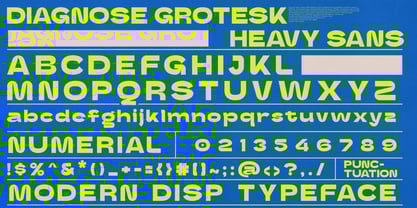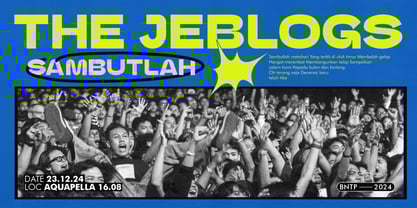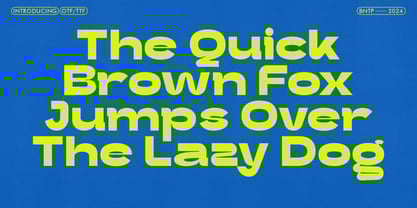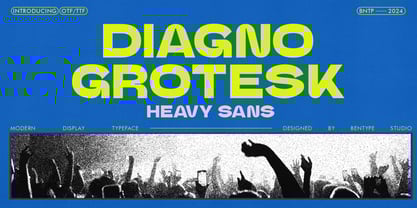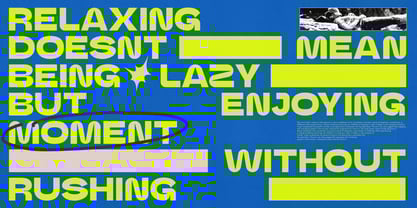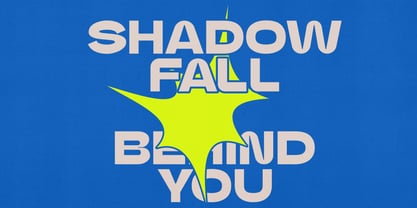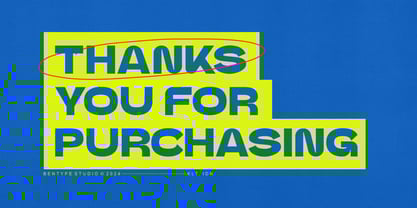
Diagno Grotesk
by Bentype
The Diagno Grotesk Font Family was designed by Muhammad Farkhan and published by Bentype. Diagno Grotesk contains 1 styles. More about this family
DIAGNO GROTESK is a modern sans display font with several unique stems and joins. Despite their limitations in character set and resolution, pixel fonts remain popular among designers for their distinct visual appeal and nostalgic charm, with a condensed style this font is suitable for your design needs for displays, headlines, banners etc.
Font Includes:
• Upper Case & Lower Case
• Numbers
• Punctuation
Designers: Muhammad Farkhan
Foundry: Bentype